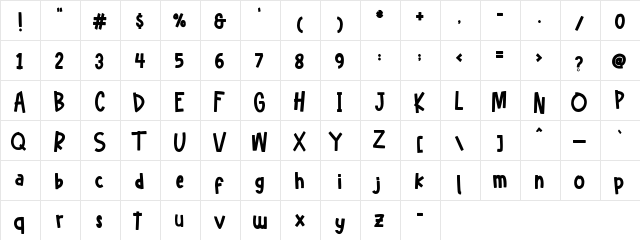
Hellofreeday DEMO Regular
| Designer | GlyphStyle 2019 |
Design Context for Hellofreeday DEMO Typeface
Hellofreeday DEMO is a composed and adaptable typeface that performs quietly and consistently across a wide range of design contexts.